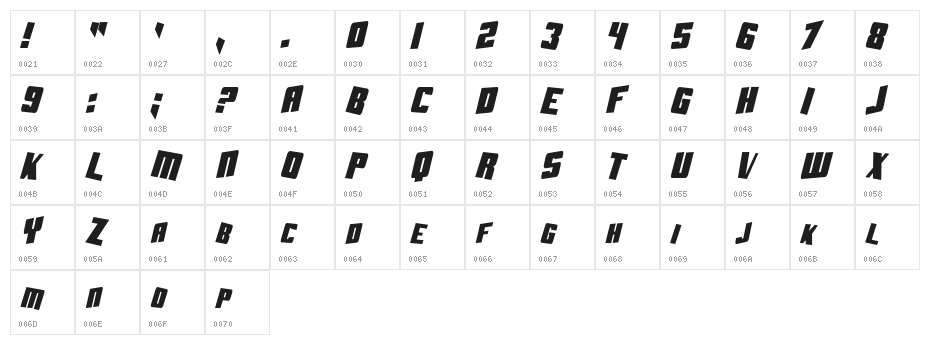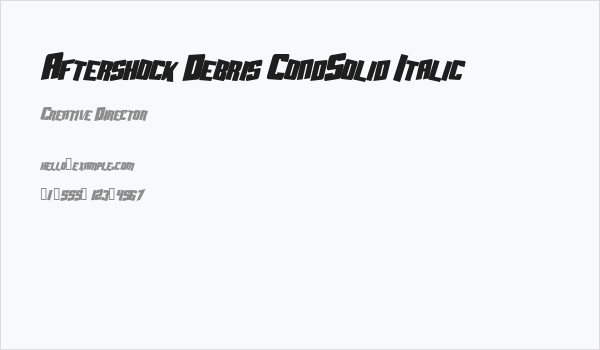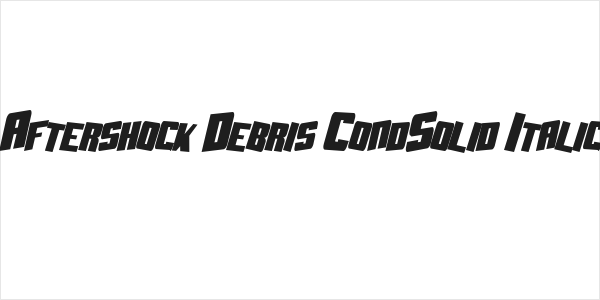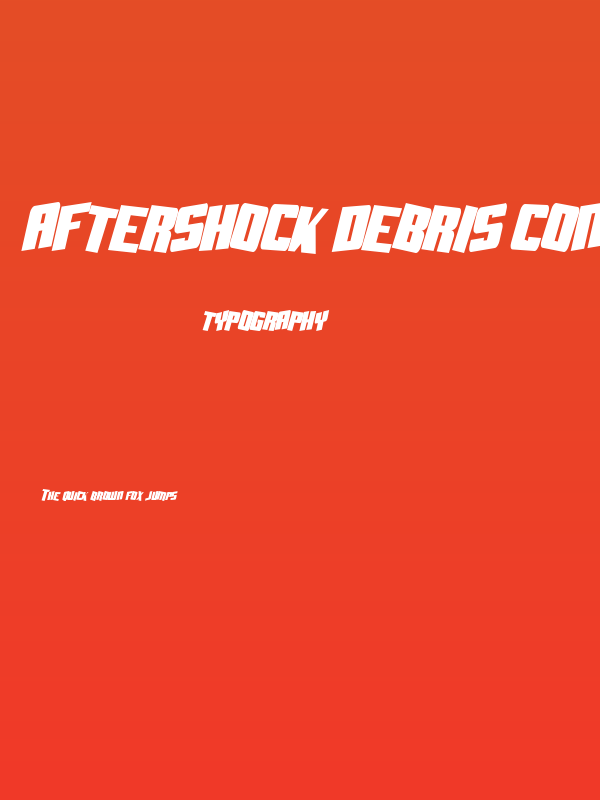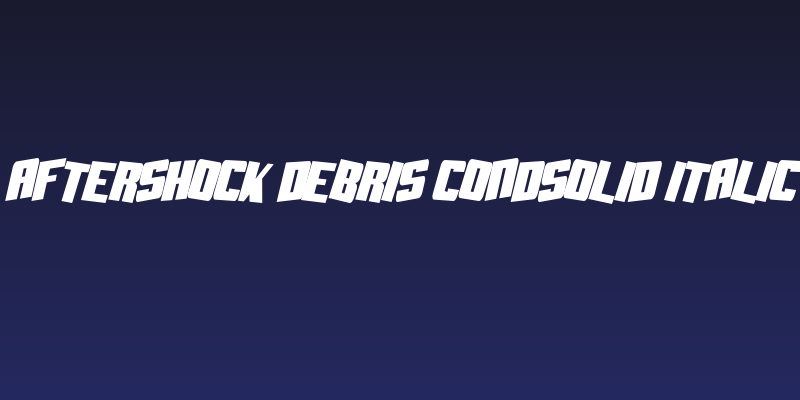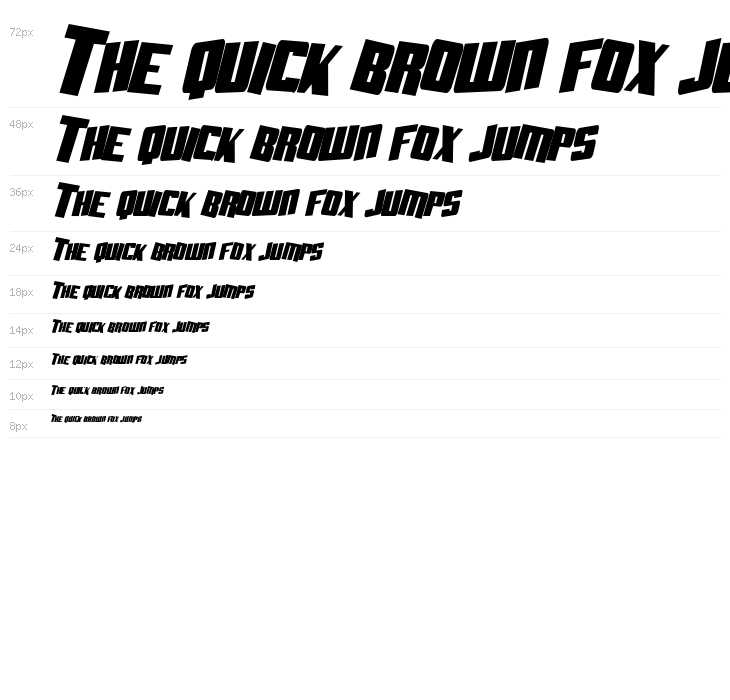
Aftershock Debris CondSolid Italic Font
Aftershock Debris CondSolid Italic Description
This font exhibits a bold and dynamic style with a strong, angular design. The letters are heavily slanted, giving a sense of movement and energy. The strokes are thick and consistent, creating a solid and impactful appearance. The characters are tightly spaced, enhancing the compact and forceful look. This font is ideal for making a statement, with its aggressive and modern aesthetic. The numbers and special characters maintain the same boldness and slant, ensuring consistency across all elements.
| Proposed Projects | Ideal for sports branding, action movie posters, video game titles, and dynamic advertisements. |